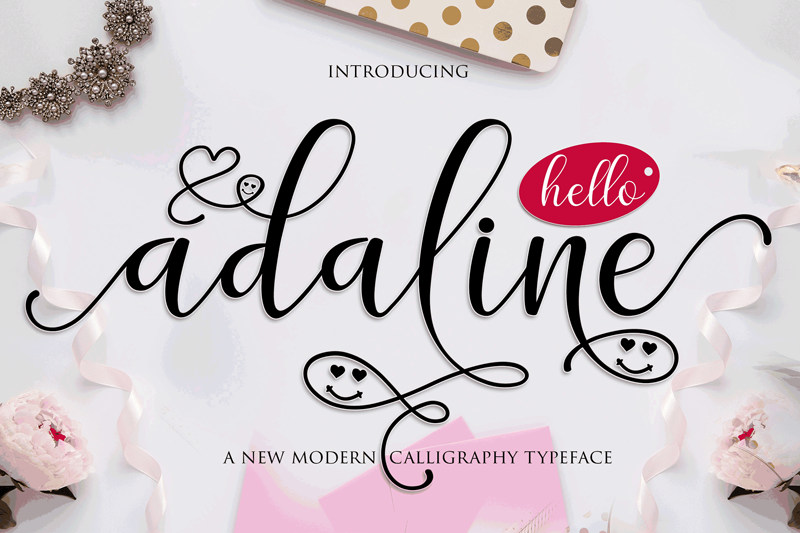
Preview and download Adaline Script Font. Created by Mr Letters in Script Calligraphy styles with Free for personal use license.
for commercial use https://crmrkt.com/J56AQl for other popular fonts. https://crmrkt.com/fonts/script?u=Mrletters Adaline Script a new fresh & modern script with a handmade calligraphy style, decorative characters and a dancing baseline! So beautiful on invitation like greeting cards, branding materials, business cards, quotes, posters, lettering and more !! Adaline Script come with 500+ glyphs. The alternative characters were divided into several Open Type features such as Swash, Stylistic Sets, Stylistic Alternates, Contextual Alternates. The Open Type features Adobe Flash Player Adobe Illustrator, Adobe InDesign, Adobe Photoshop Corel Draw X version, And Microsoft Word. And this Font has given PUA unicode (specially coded fonts). so that all the alternate characters can be accessed in full by a craftsman or designer. Uppercase & Lowercase International Languange & Symbols Support Punctuation & Number PUA Unicode Range Standard Stylistic Alternates Stylistic Set 1-16 Character Variant Contextual. The ZIP file are include the following: Adaline Script - Regular. ttf Adaline Script - Regular. otf Adaline Script - italic. ttf Adaline Script - italic. otf Adaline Script - Bold. ttf Adaline Script - Bold. otf Adaline Script - Bold italic. ttf Adaline Script - Bold italic. otf Adaline Script - thin. ttf if you do not know how to take the glyphs, see the percentage video and Adaline Script tutorial on this link. https://www.youtube.com/watch?v=SLizg8_z5lU More... |